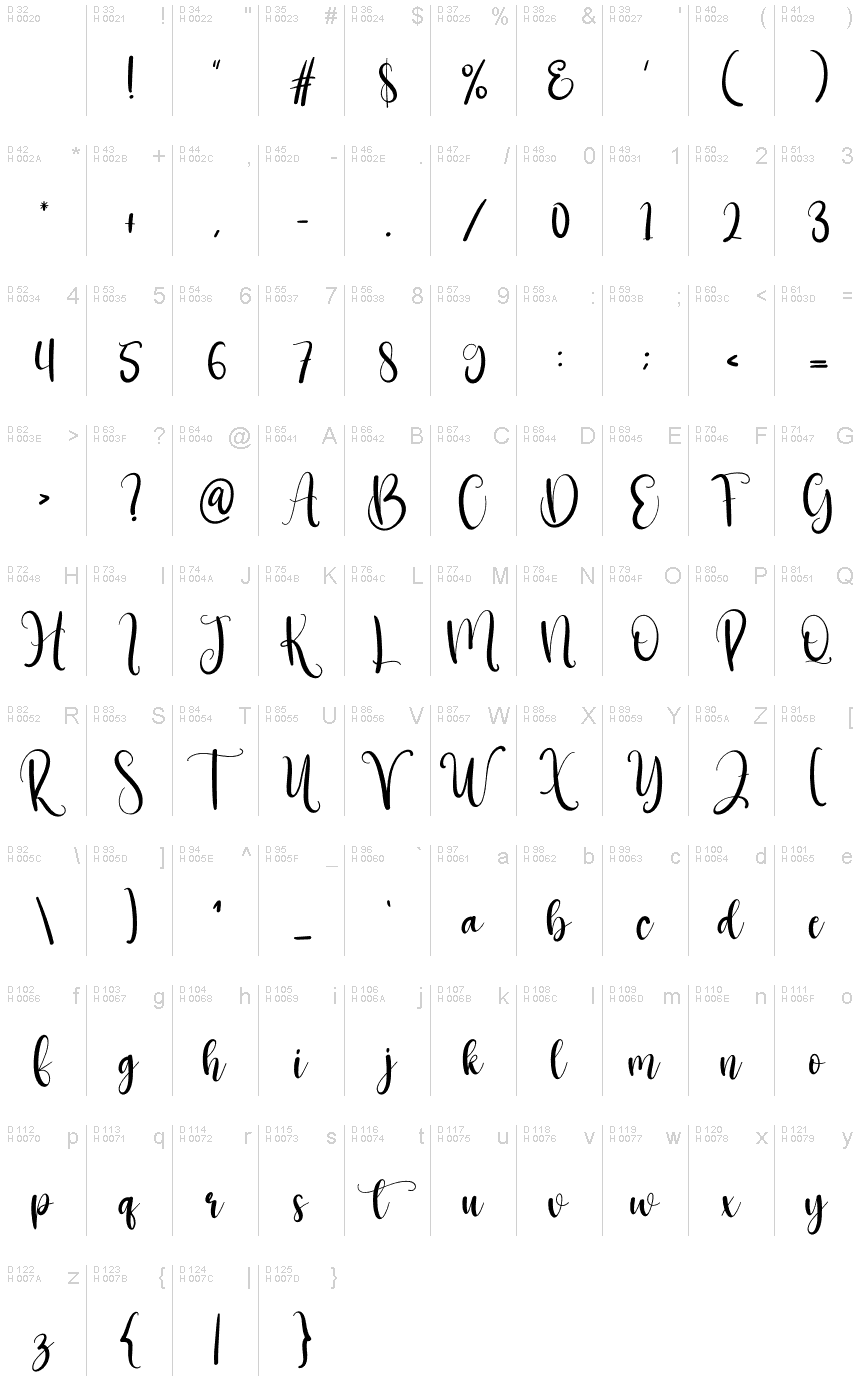
Strong Signature
Strong Signature is a stunning calligraphy font designed by scratchones. Its semi-light weight adds an elegant touch to any project. This versatile font is perfect for wedding invitations, logos, book covers, and more. With its flowing strokes and graceful curves, Strong Signature brings a touch of sophistication to any design. Whether you're creating a romantic card or a high-end brand identity, this semi-light font will add the perfect amount of flair to your project. Unleash your creativity with Strong Signature - the go-to choice for anyone seeking to elevate their designs with exquisite calligraphy style!
the latest style letters are perfect for wall displays, wedding invitations, social media post logos, advertisements, product packaging, product designs, labels, photography, watermarks, invitations, stationery, and any project that requires taste handwriting.